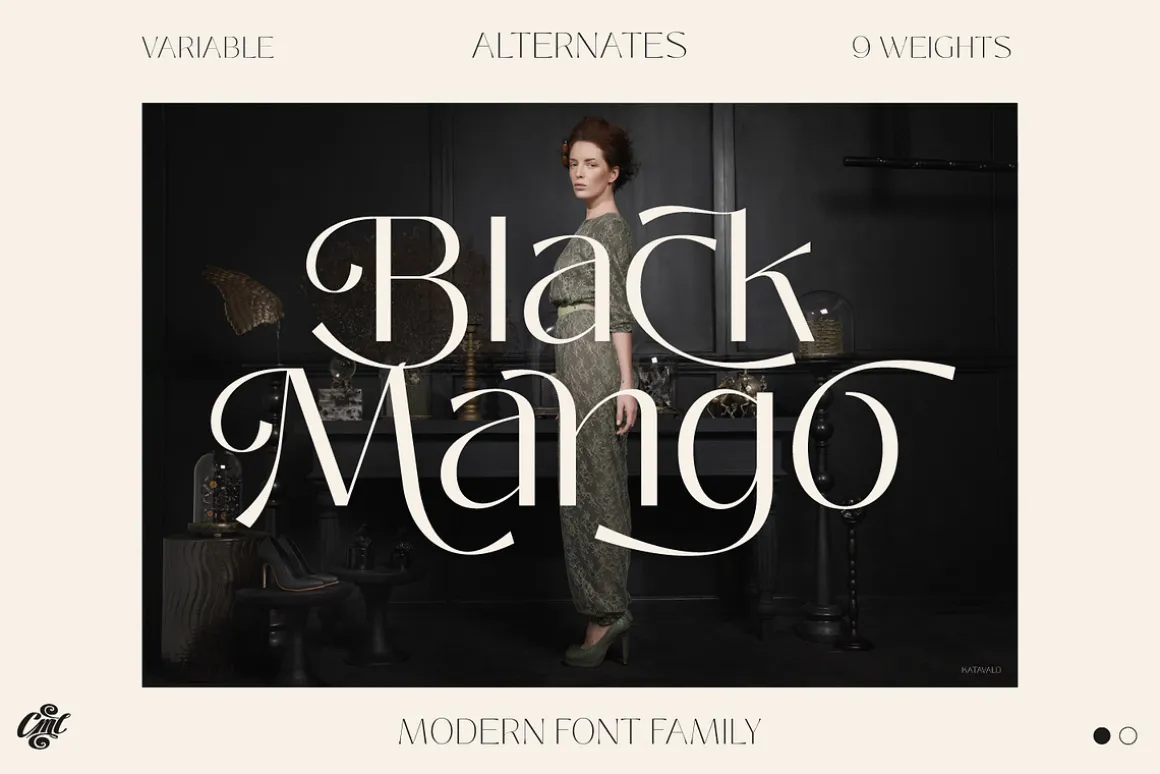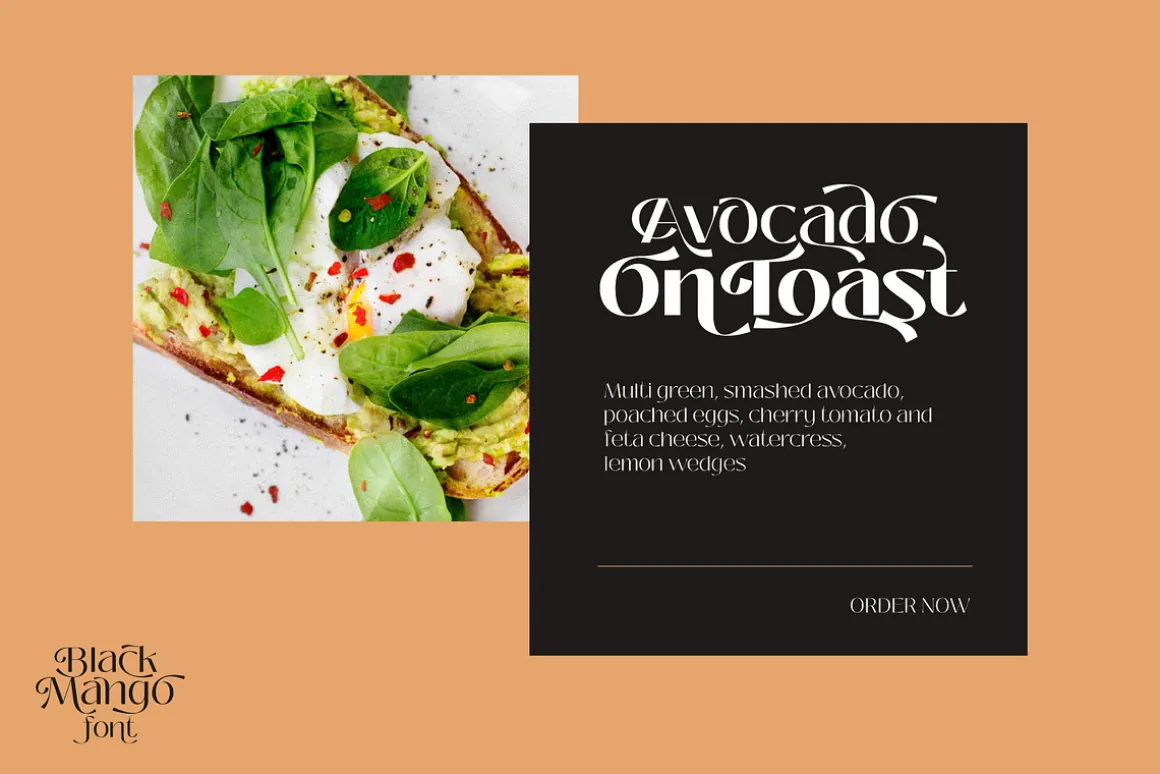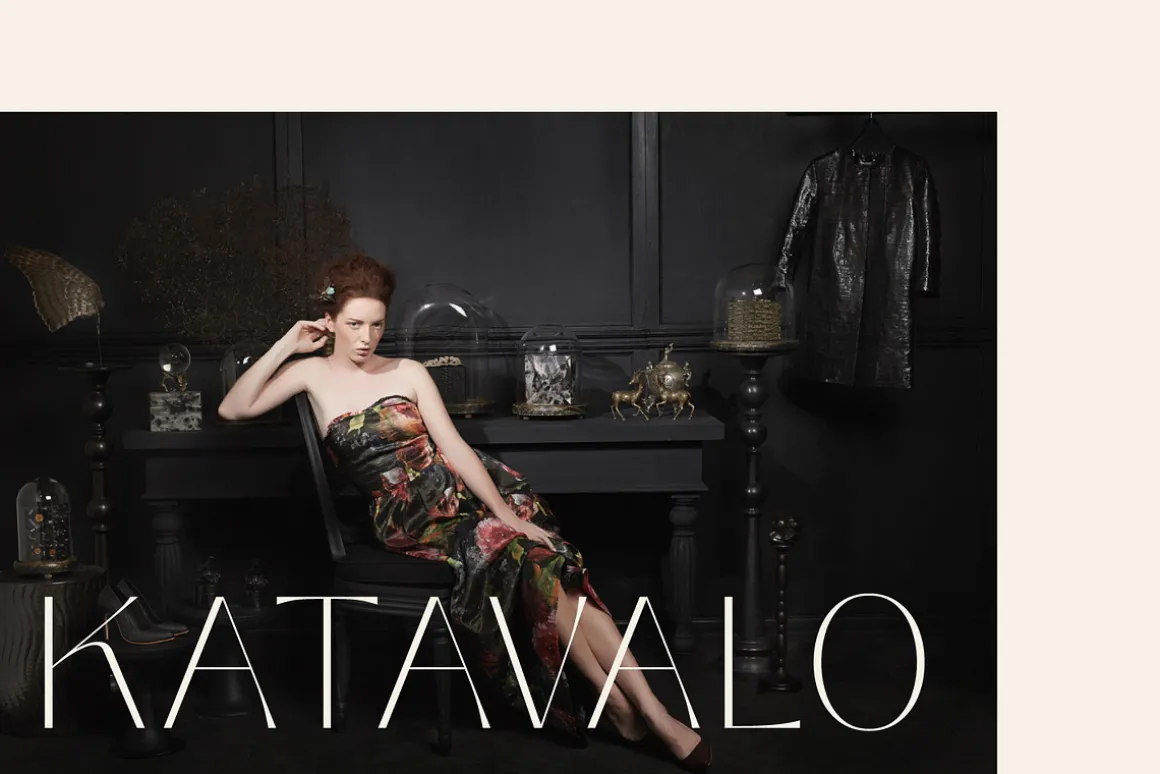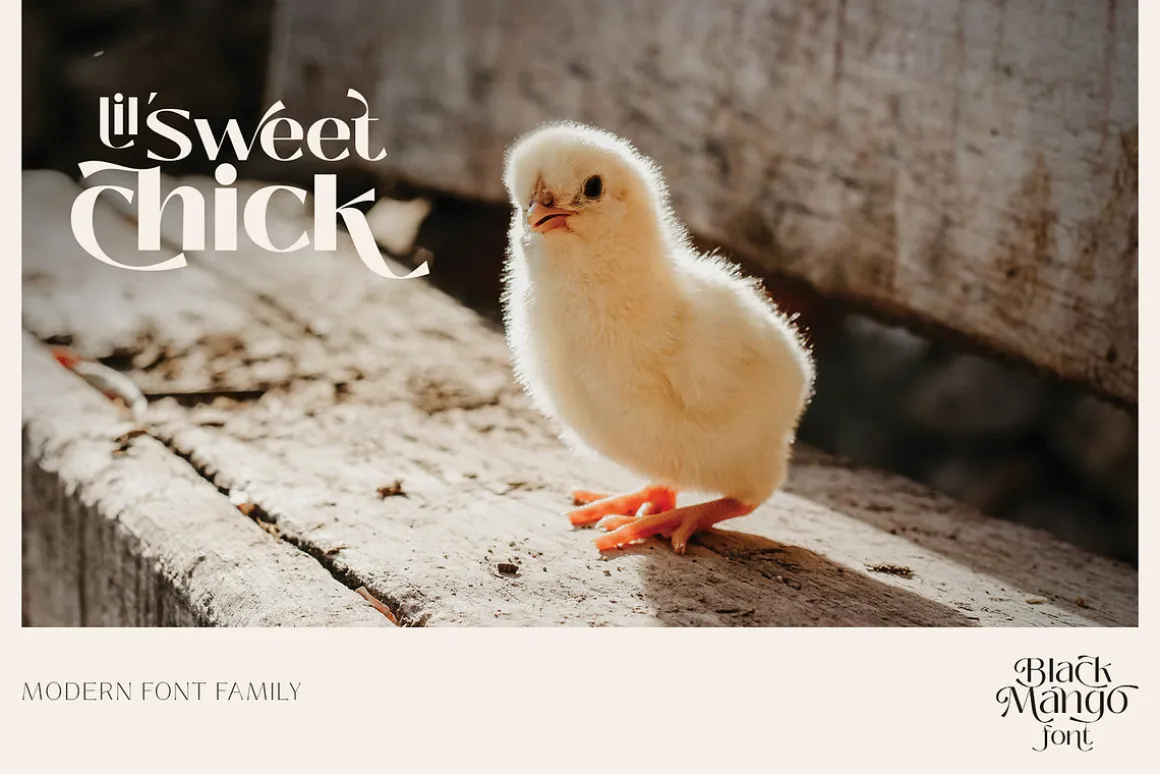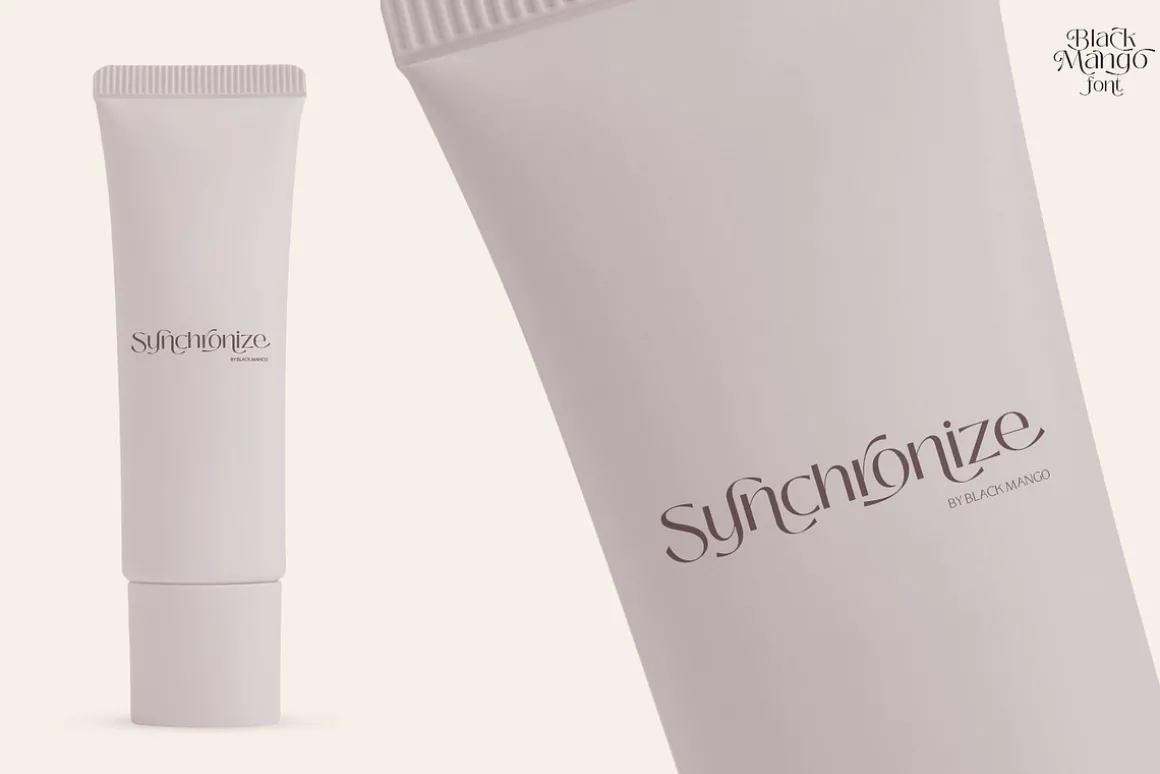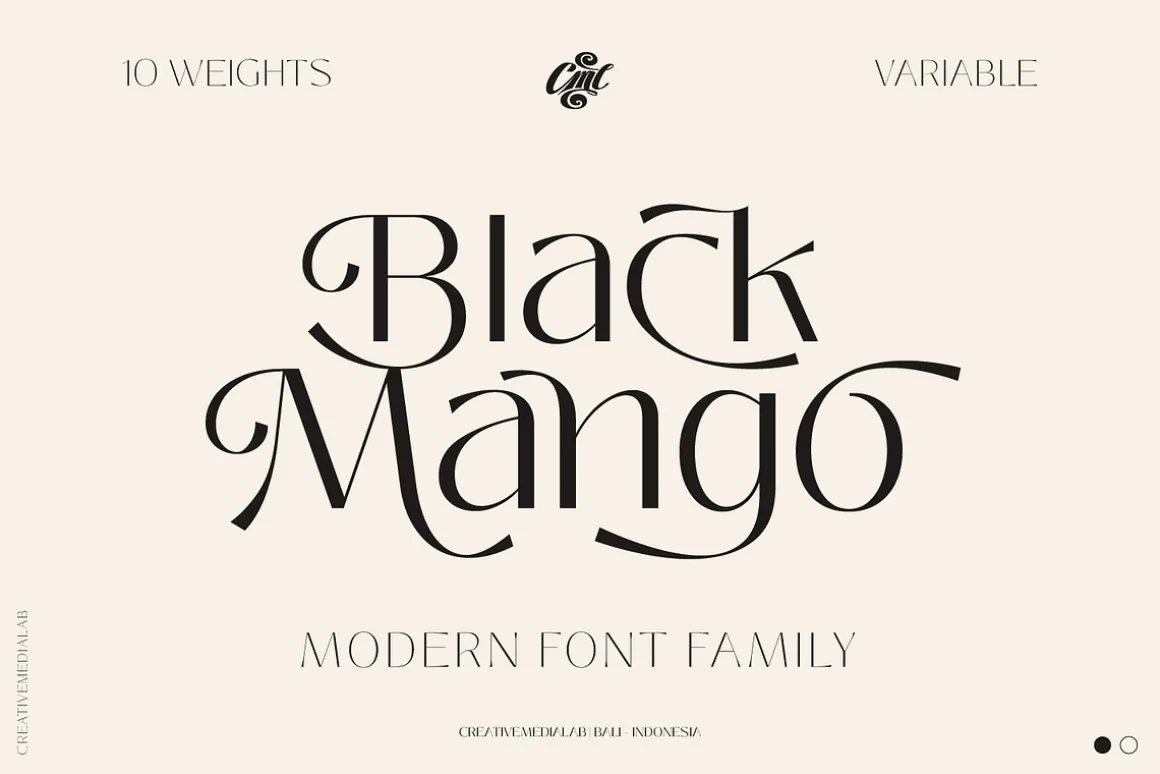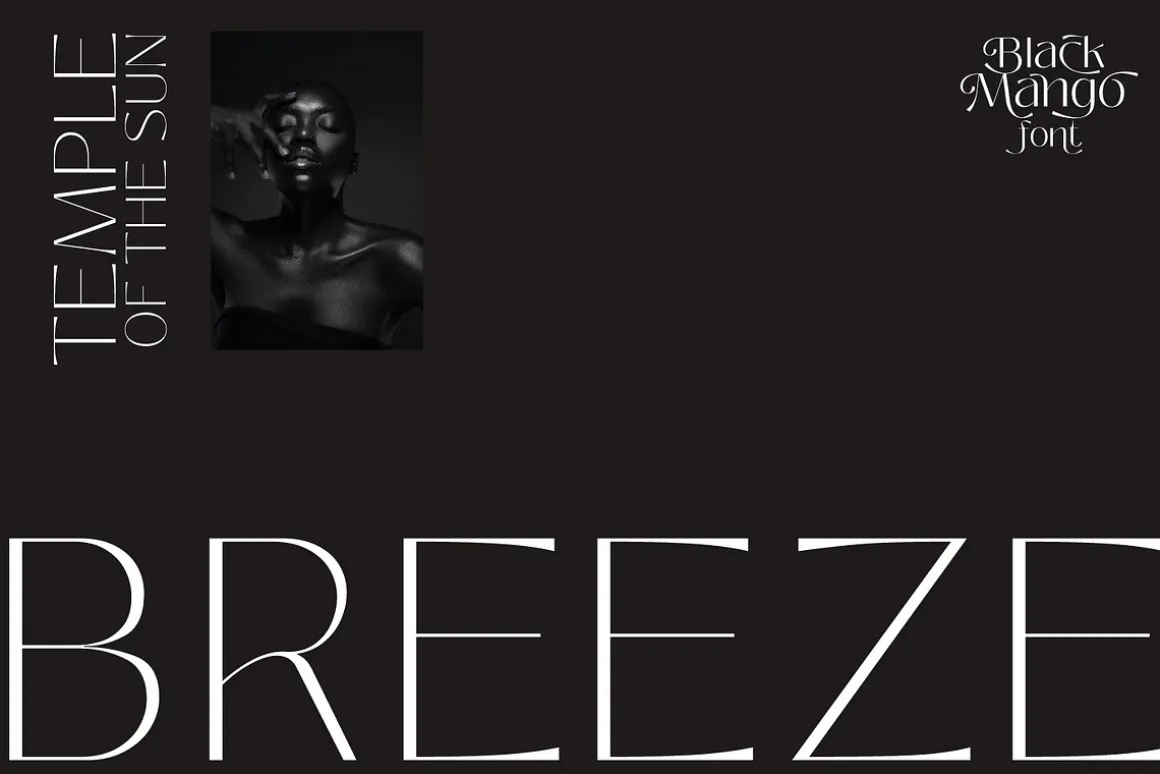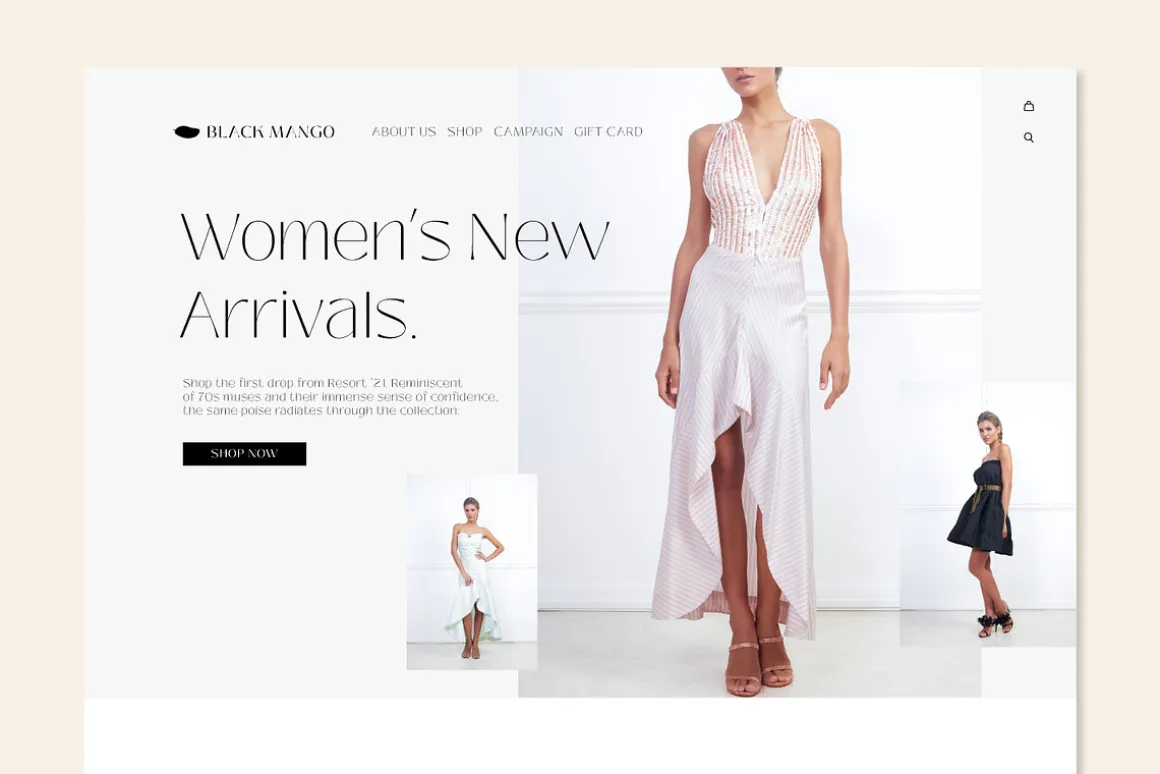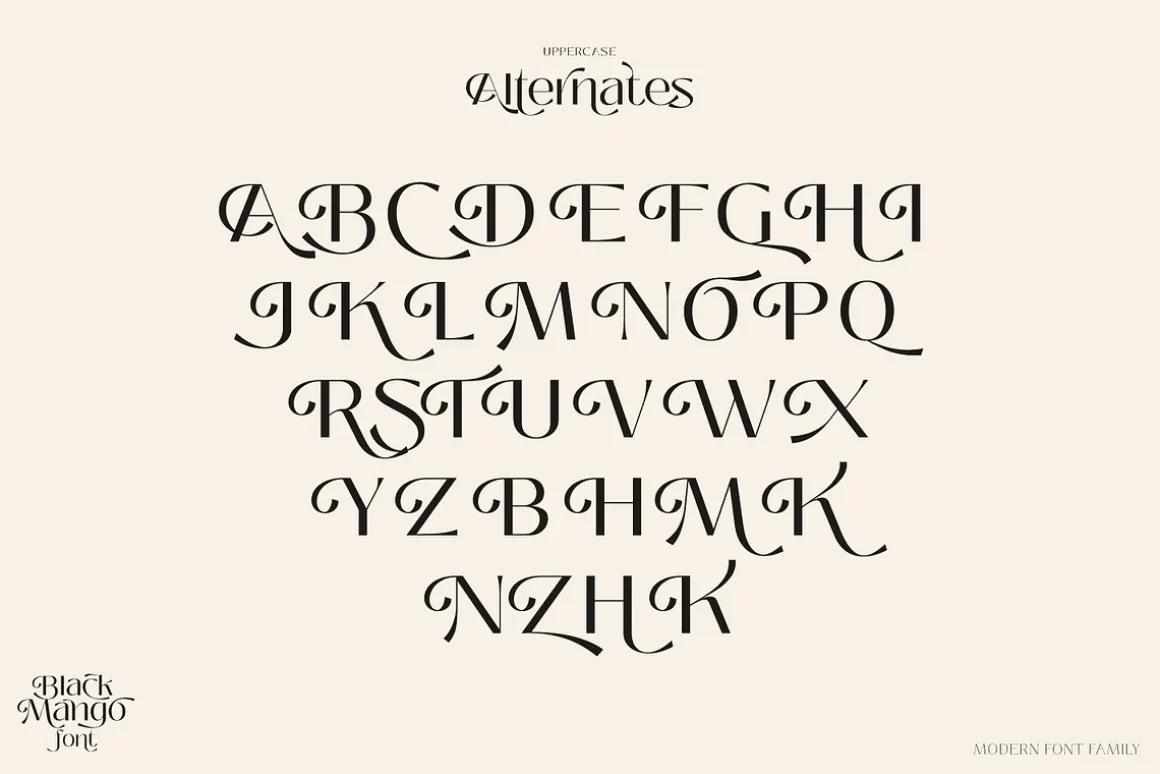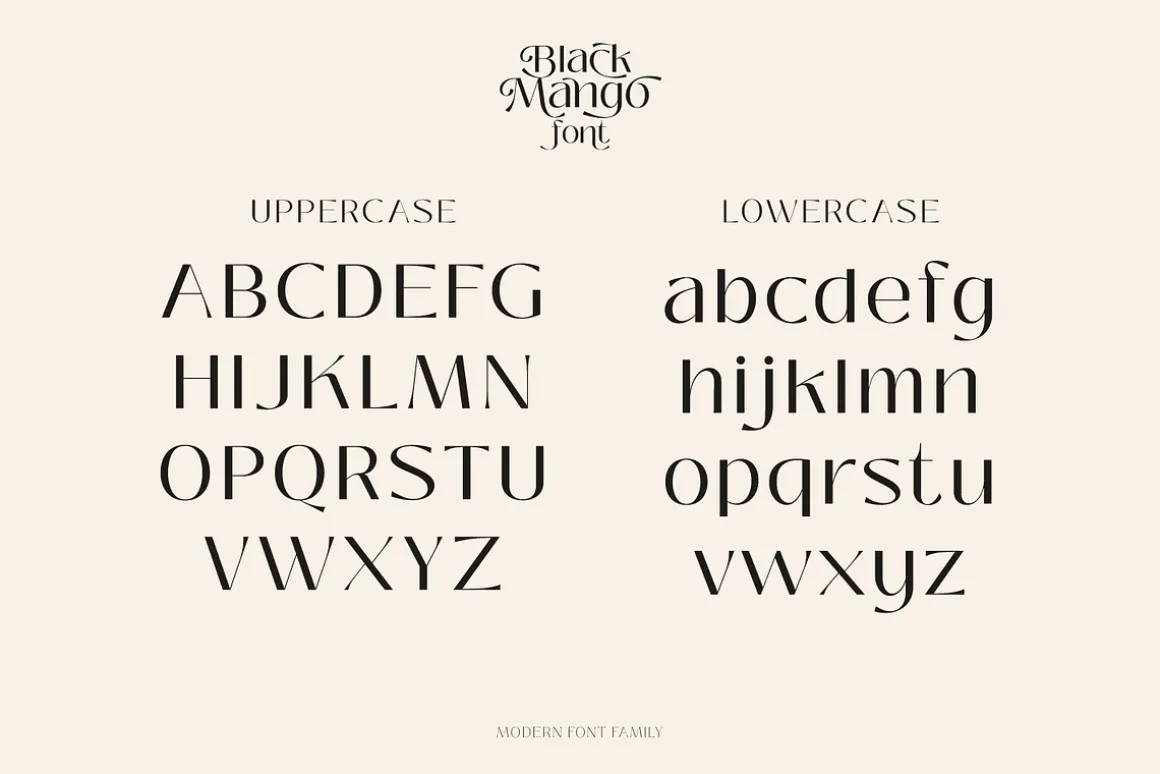
Black Mango Family
Modern simple family consists of 9 weights and has dozens of alternates to combined with.this versatile family is best for branding, webdesign project, logo and much more.comes with variable format as well as multilingual support, numbers, and currency symbols.